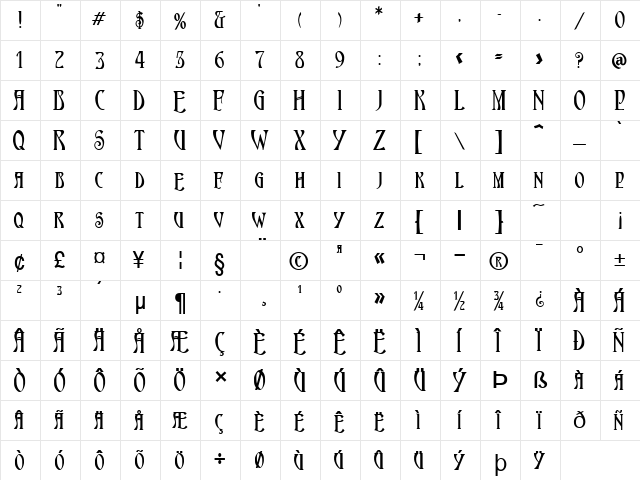
Nouveau Bold
Design Context for Nouveau Typeface
Nouveau is a composed and adaptable typeface that performs quietly and consistently across a wide range of design contexts. Its bold stroke weight gives it real presence on the page.